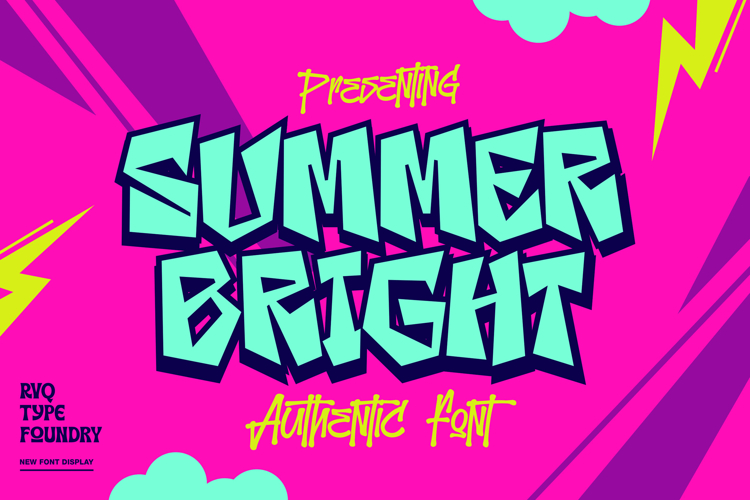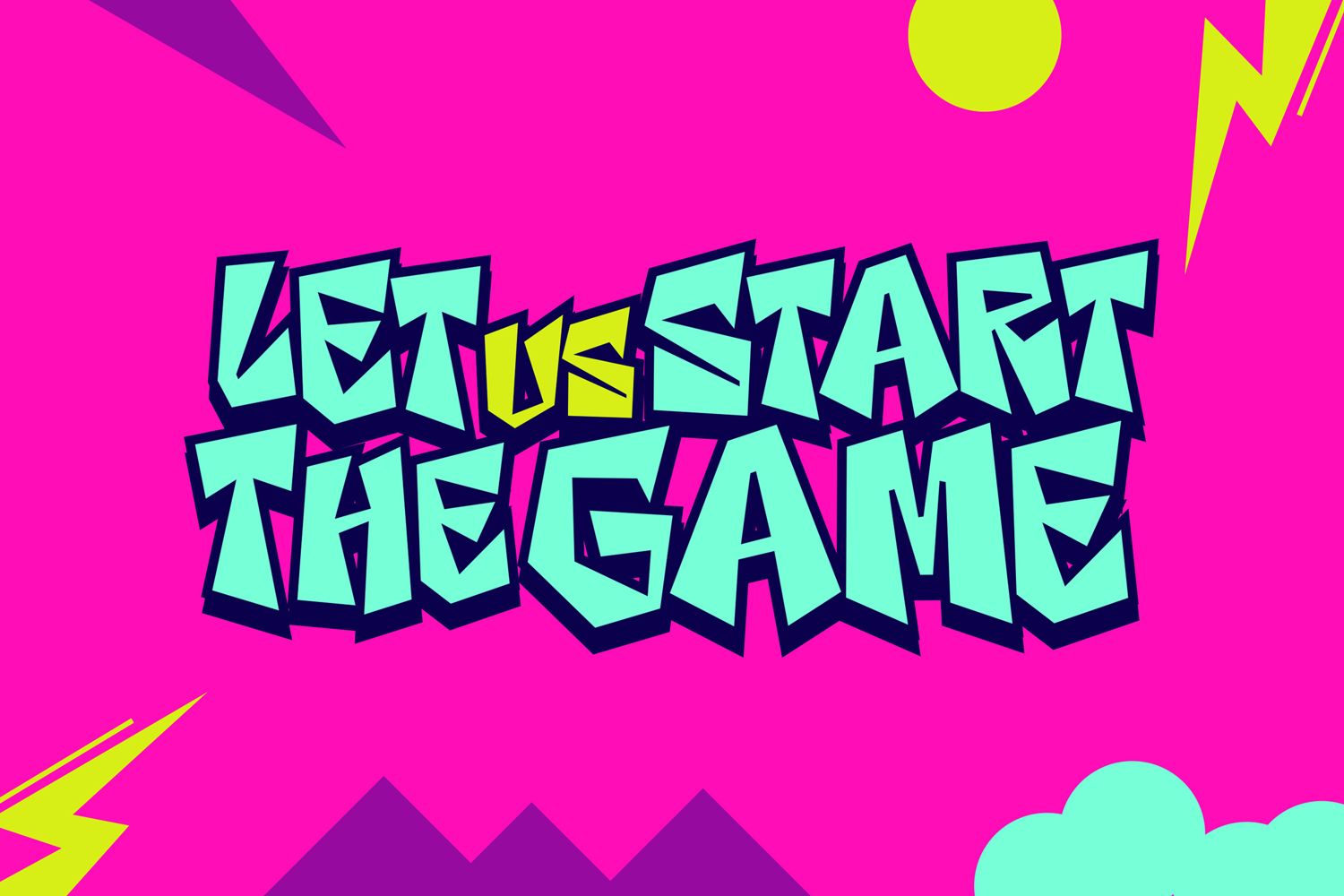
The Summer Bright is new font from Rvq Typefoundry,Unique and simple letters for use in product design in a graffiti style.This font is good for clothing products, social media, posters, banners, logos and others.
The Summer Bright is suitable font for many creative products & designs.